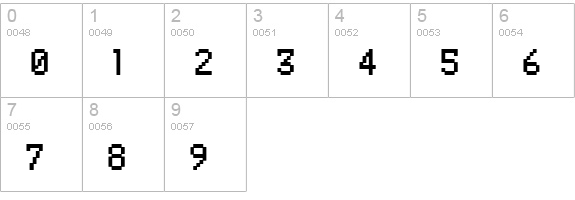
The Algol font is a sleek and modern typeface that exudes elegance and sophistication. Its clean lines and sharp angles give it a contemporary feel, making it perfect for a wide range of design projects. Whether you're crafting a stylish logo, designing a professional website, or creating eye-catching marketing materials, the Algol font is sure to make a statement. What's even better is that the Algol font is completely free to download at FontsMarket.com. This means you can elevate your designs without breaking the bank. With its versatility and timeless appeal, the Algol font is a must-have addition to any designer's toolkit. Download it today and see the difference it can make in your projects!